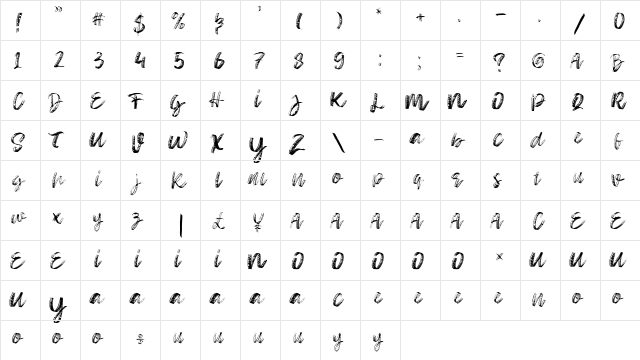
Sketch Time Regular
Regular · Degi Kurniawan Degi Kurniawan ·
DesignerDegi Kurniawan
Design Context for Sketch Time Typeface
Sketch Time is a composed and adaptable typeface that performs quietly and consistently across a wide range of design contexts.